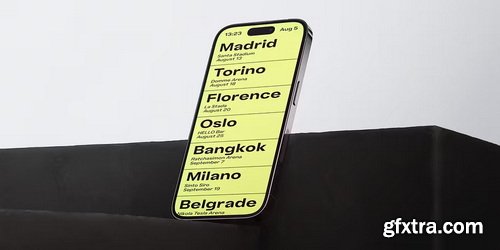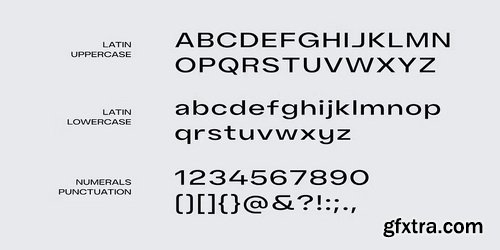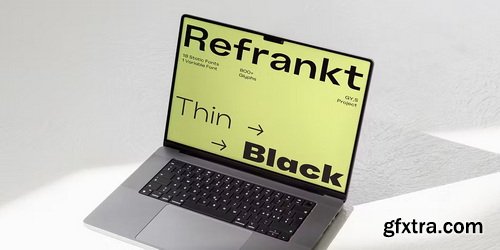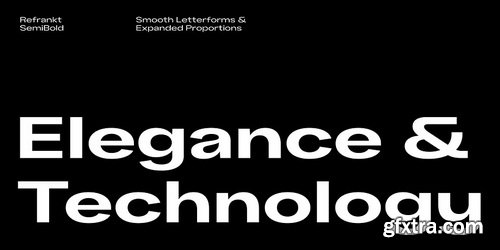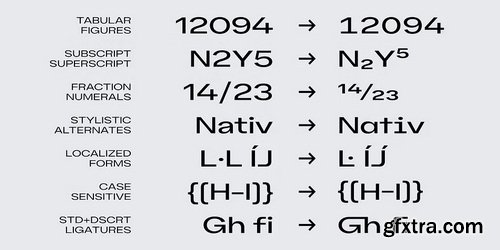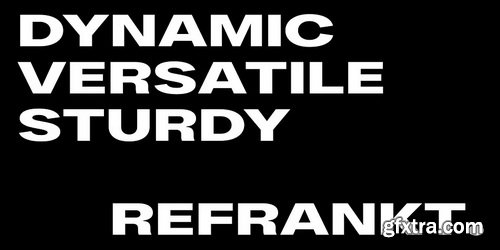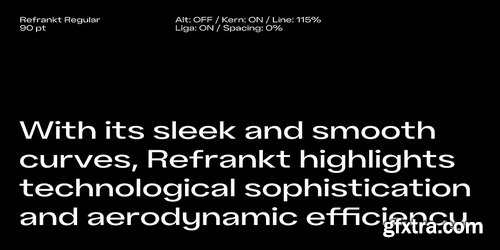
- Refrankt is a multifunctional sans-serif type family with 18 styles, ranging from Thin to Black with matching italic styles. The key visual feature of Refrankt is its wider characters and expanded proportions, which accentuate the character of the type family and extend its application. Refrankt works well as a display font but can also be used comfortably in headings and larger bodies of text.
- Refrankt offers a clean and thoughtful take on the functional grotesque sans-serif style and can be used in a wide variety of projects, from UI/UX design to packaging and branding. It can also be employed as a font for logos and word marks. Whether you're looking for bold, sturdy letterforms or dynamic flexibility, Refrankt readily adapts to any task. Refrankt would look at home in projects related to technology, athletics, industrial design and many more.
- The functionality of Refrankt is defined by its multilingual support (200+ languages) and its extensive OpenType features, such as Case-Sensitive Punctuation and Stylistic Alternates, among many others. In addition to a standard set of figures, Refrankt includes tabular figures, old-style figures, superiors, inferiors, and fractions. The entire character set comprises over 800 glyphs.